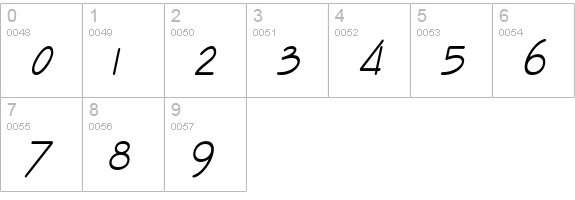
Enview Thin Italic is a delicate, low-contrast, italic variant in the Enview typeface family \xE2\x80\x94 well suited to fashion editorial, minimal branding, and high-contrast display.
Enview Thin Italic font is a sleek and elegant typeface that exudes sophistication and modernity. With its delicate and slender letterforms, this font is perfect for adding a touch of refinement to your designs. The Italic style adds a sense of movement and flair to your text, making it ideal for fashion, beauty, and luxury branding projects. The Enview Thin Italic font is not only visually pleasing but also highly versatile, suitable for a wide range of design applications. Whether you're working on a logo, packaging, editorial design, or website, this font will bring a sense of style and elegance to your projects. Best of all, Enview Thin Italic font is available for free download at FontsMarket.com. Simply visit the website to access this stunning typeface and elevate your designs with its sophisticated charm. Don't miss out on the opportunity to enhance your creative projects with this beautiful and stylish font!